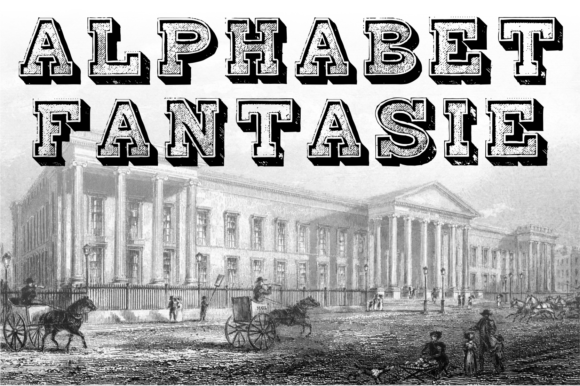
Introducing Alphabet Fantasie, the captivating display typeface that will ignite your creativity and elevate your designs to new heights. With its bold letters and remarkable readability, this font is a true masterpiece crafted by Intellecta Design.
Unleash your imagination and let your words take center stage with Alphabet Fantasie. Its bold and confident strokes command attention, making it an ideal choice for captivating titles, eye-catching logos, striking posters, and dynamic branding projects.
Immerse yourself in the beauty of Alphabet Fantasie and experience the art of typography at its finest. This font is a testament to the power of visual communication, transporting your audience to a world of elegance and sophistication.
With its remarkable readability, Alphabet Fantasie ensures that your messages are not just seen, but deeply felt. Its letters dance upon the page, inviting readers to embark on a journey of discovery. Whether it's a corporate presentation, a personal blog, or an artistic masterpiece, Alphabet Fantasie adds a touch of magic to every word.
Embrace the artistry of Alphabet Fantasie and witness the transformation of your creative endeavors. This font is more than just a collection of letters; it's an expression of individuality, a celebration of creativity, and an invitation to push the boundaries of design. Let your imagination soar and experience the boundless possibilities that await you with Alphabet Fantasie.